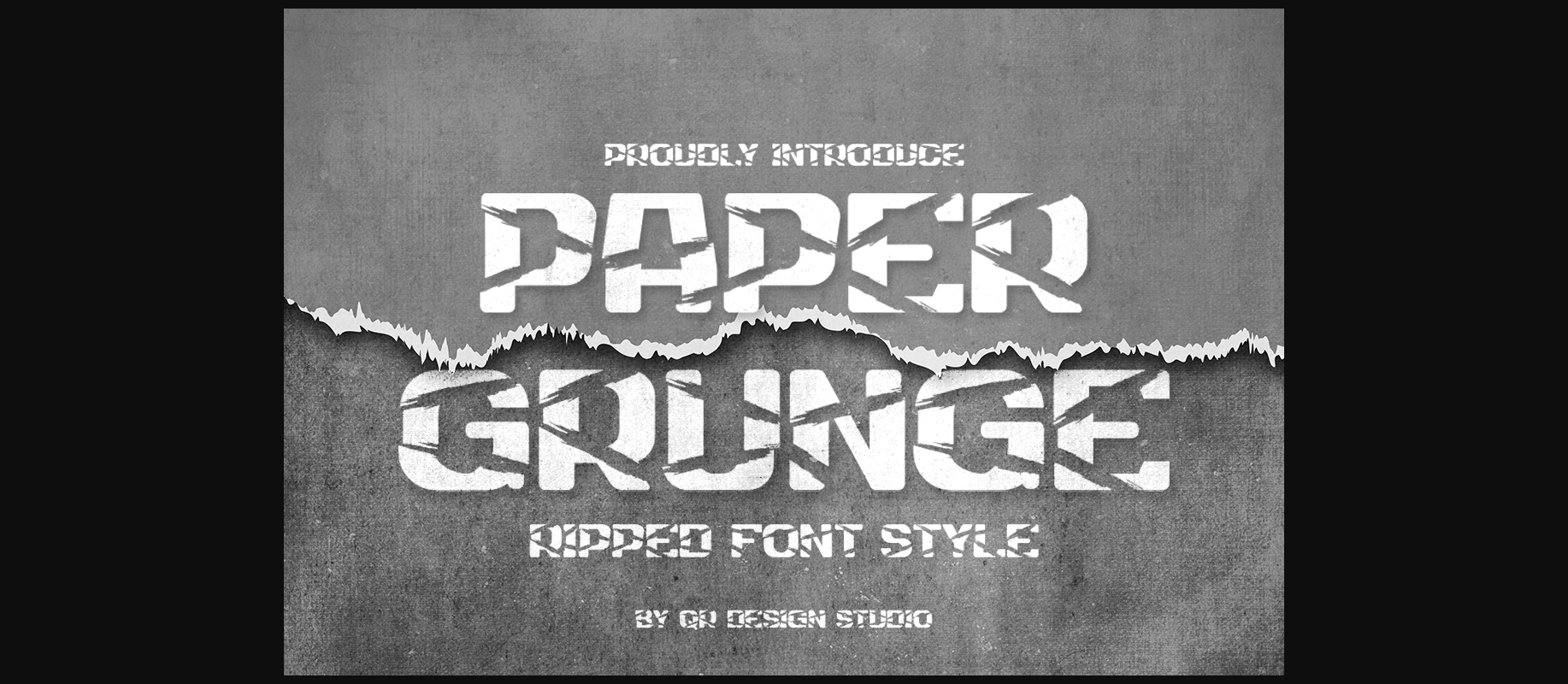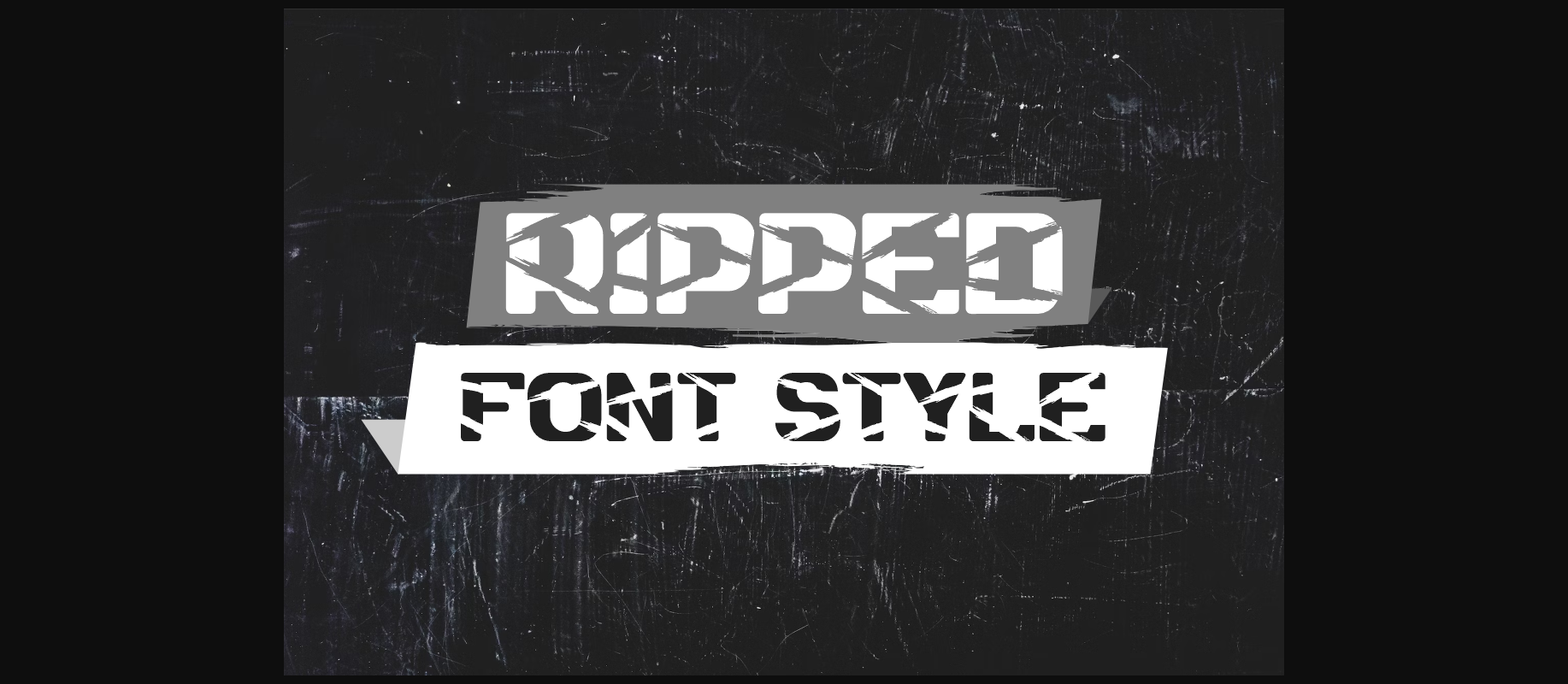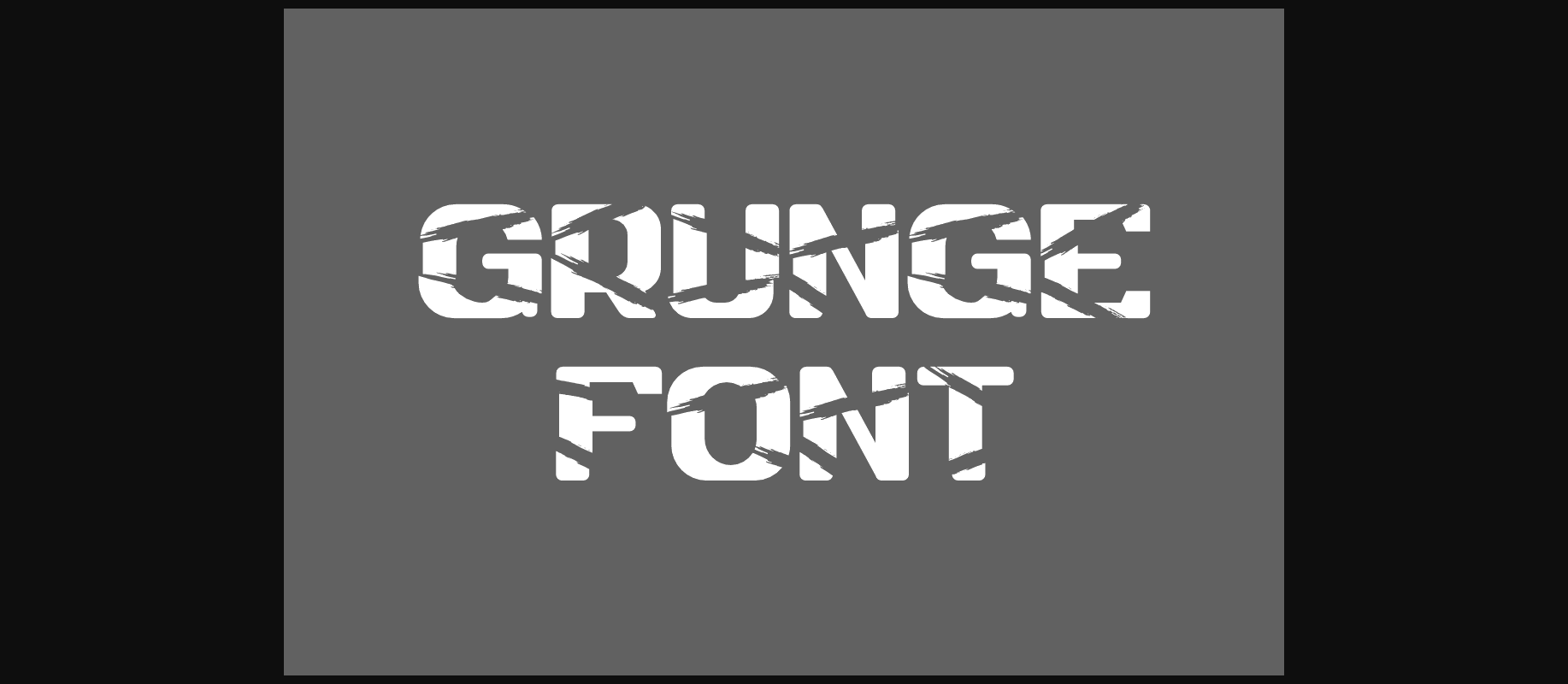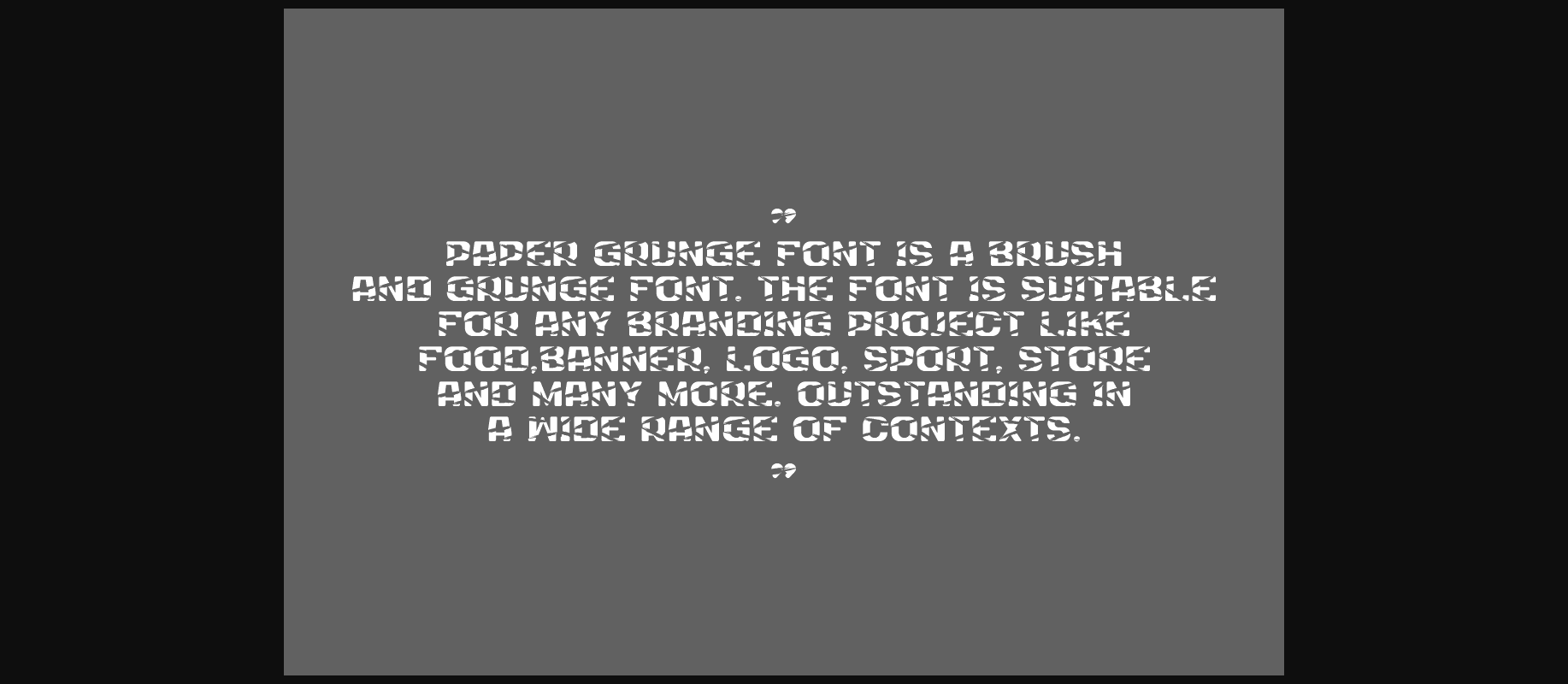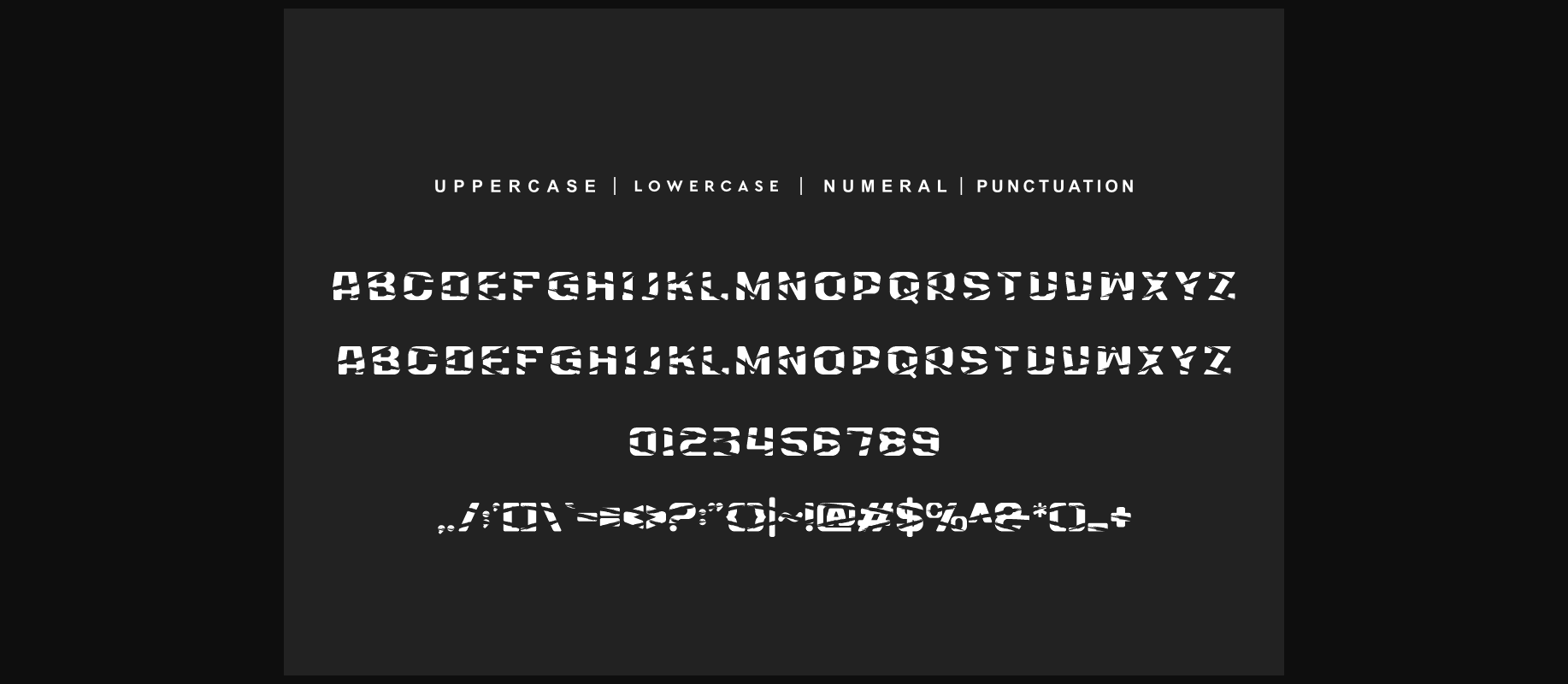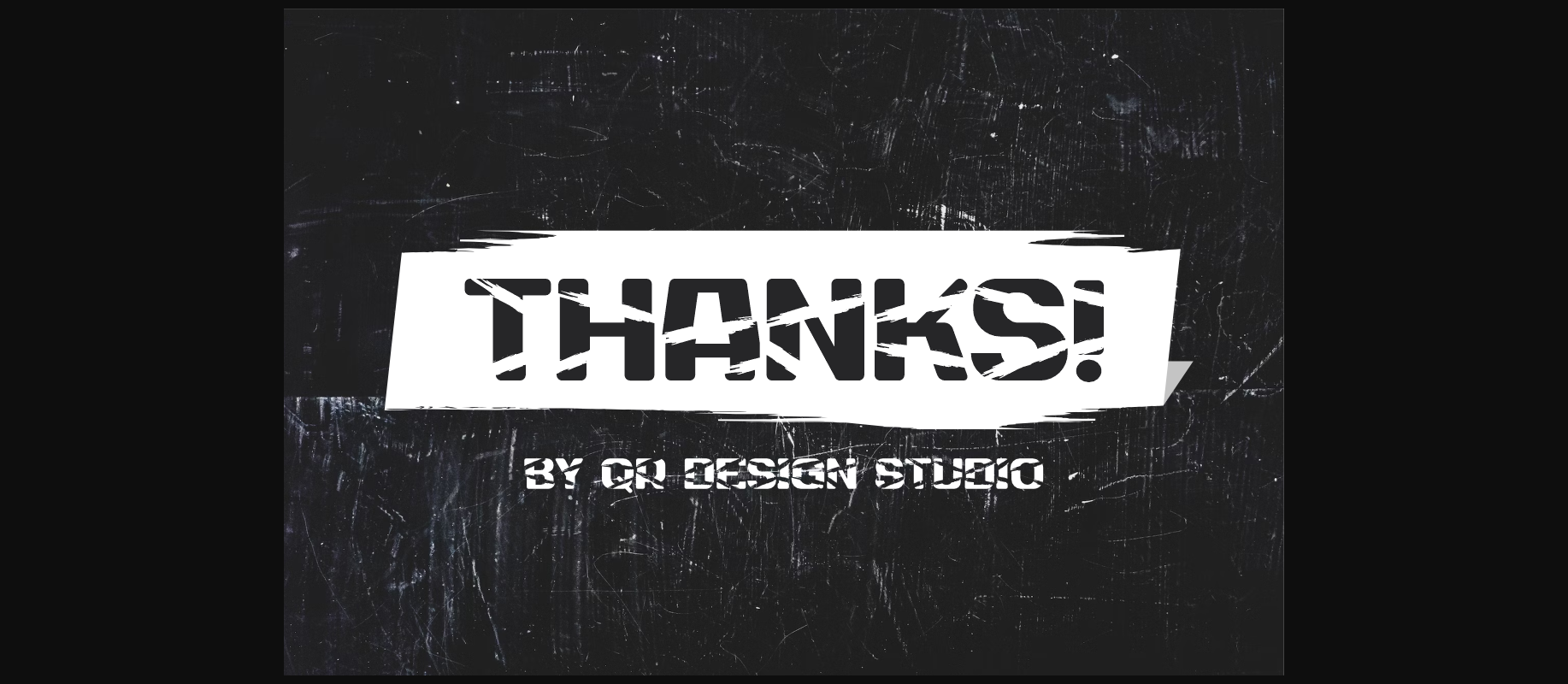
Paper Grunge Font
About Paper Grunge Font
Paper Grunge is a bold and authentic display font. It is suitable for any branding project like logo, sport, and many more.